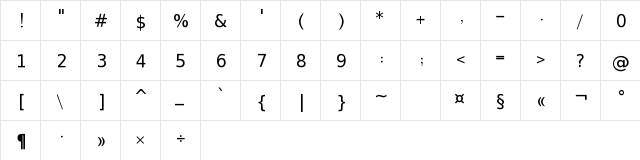
Roya Regular
| Foundry | Sharif FarsiWeb, Inc. |
Design Context for Roya Typeface
Roya offers clean, dependable letterforms without strong stylistic allegiance, making it a practical choice for designers who need flexibility.